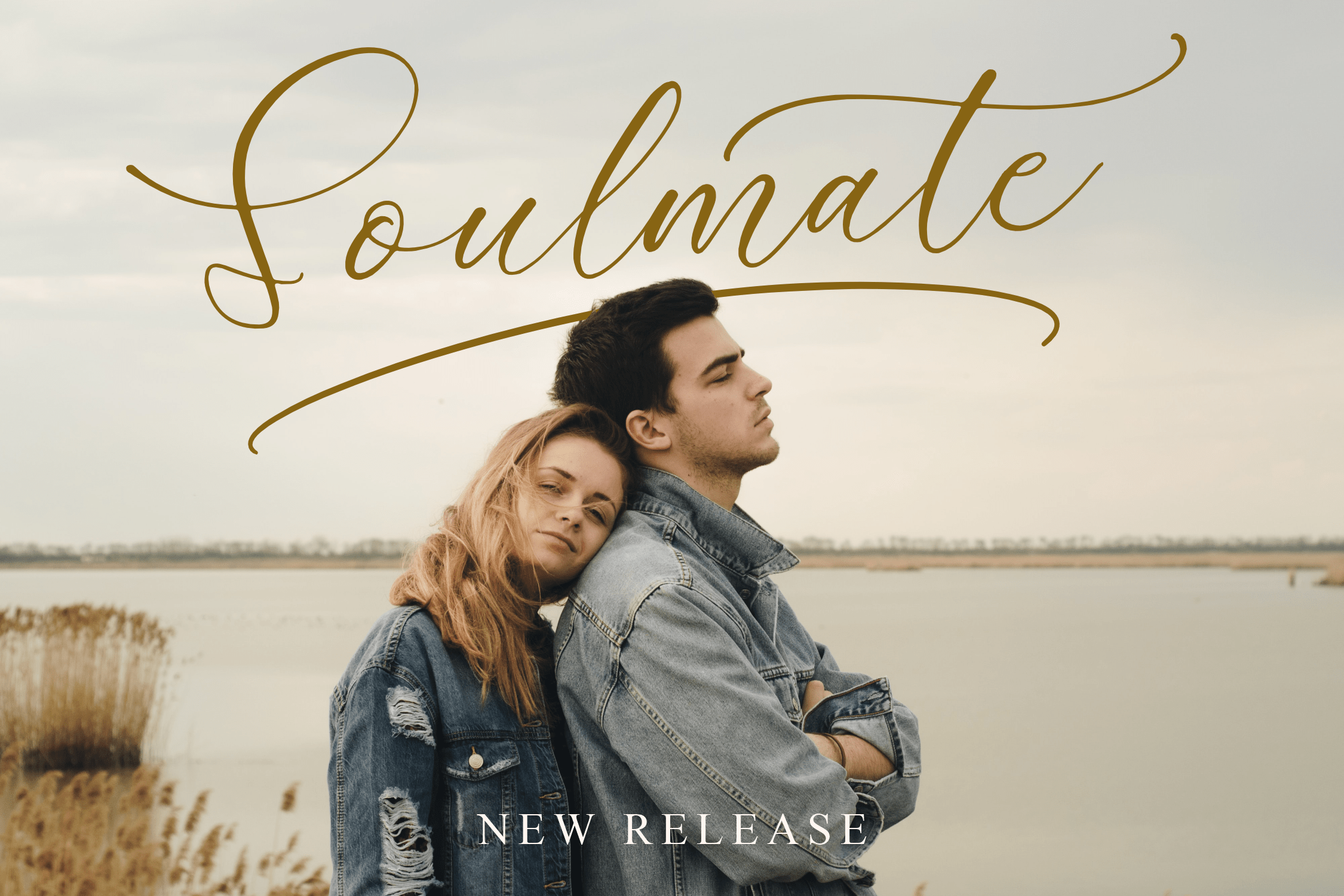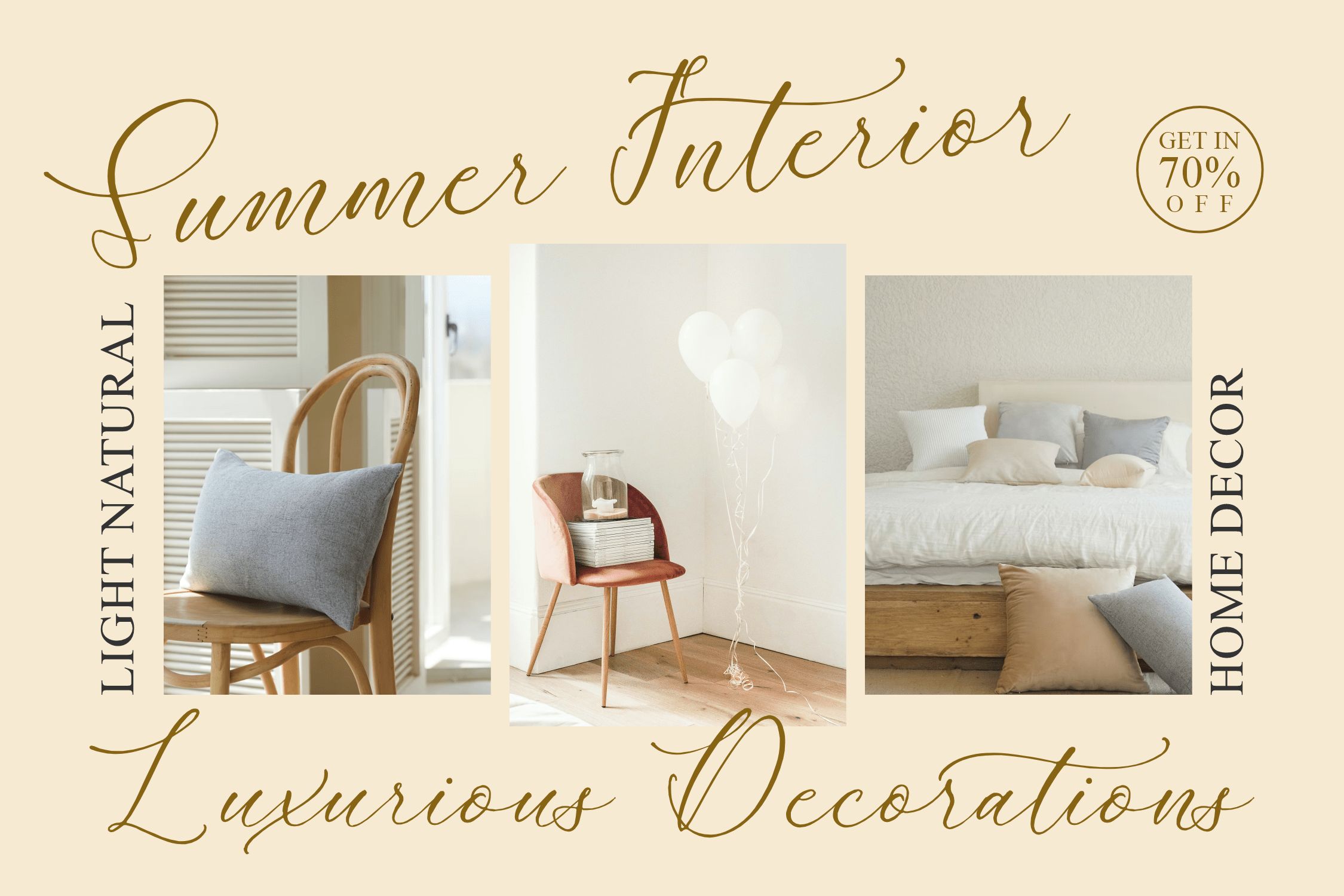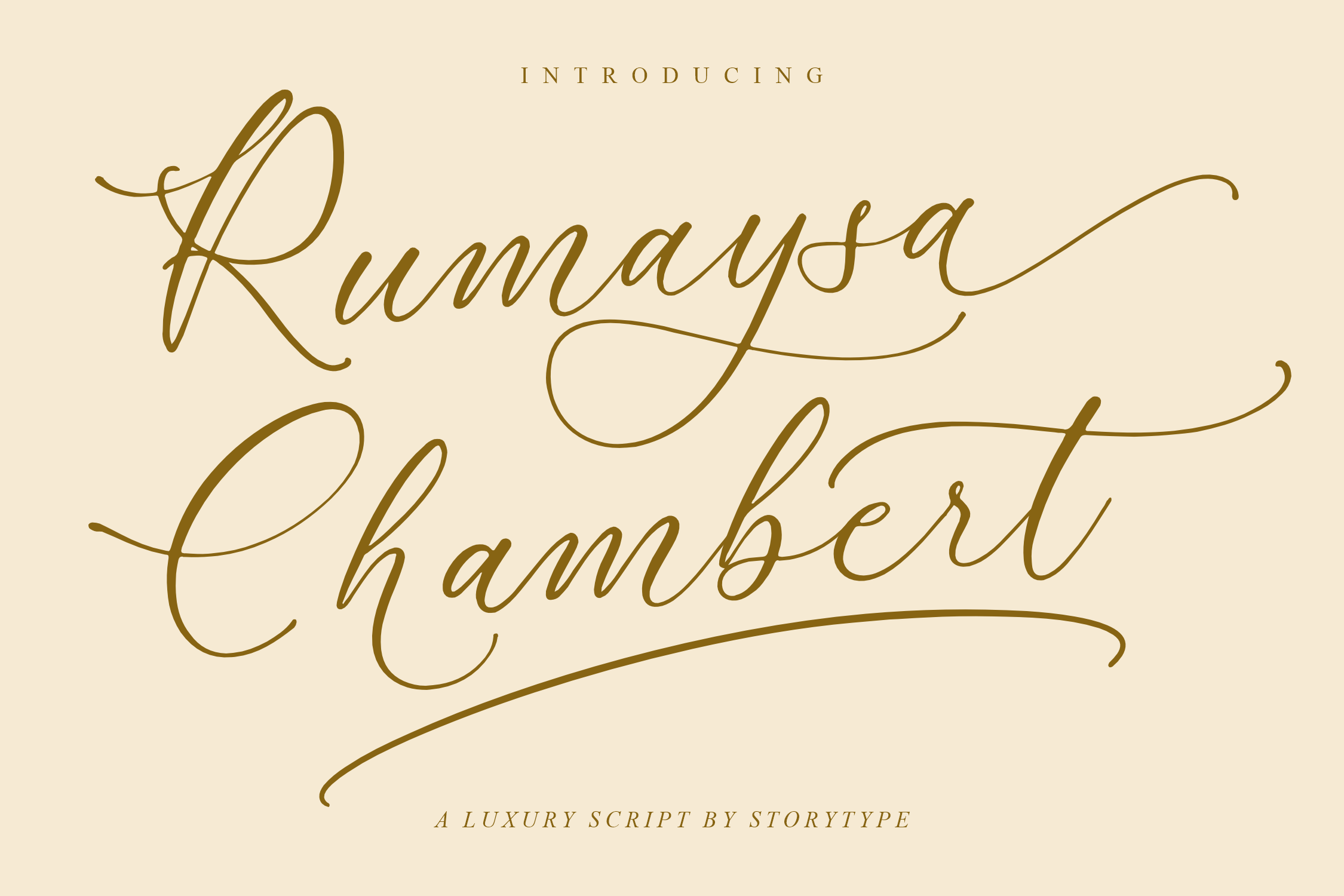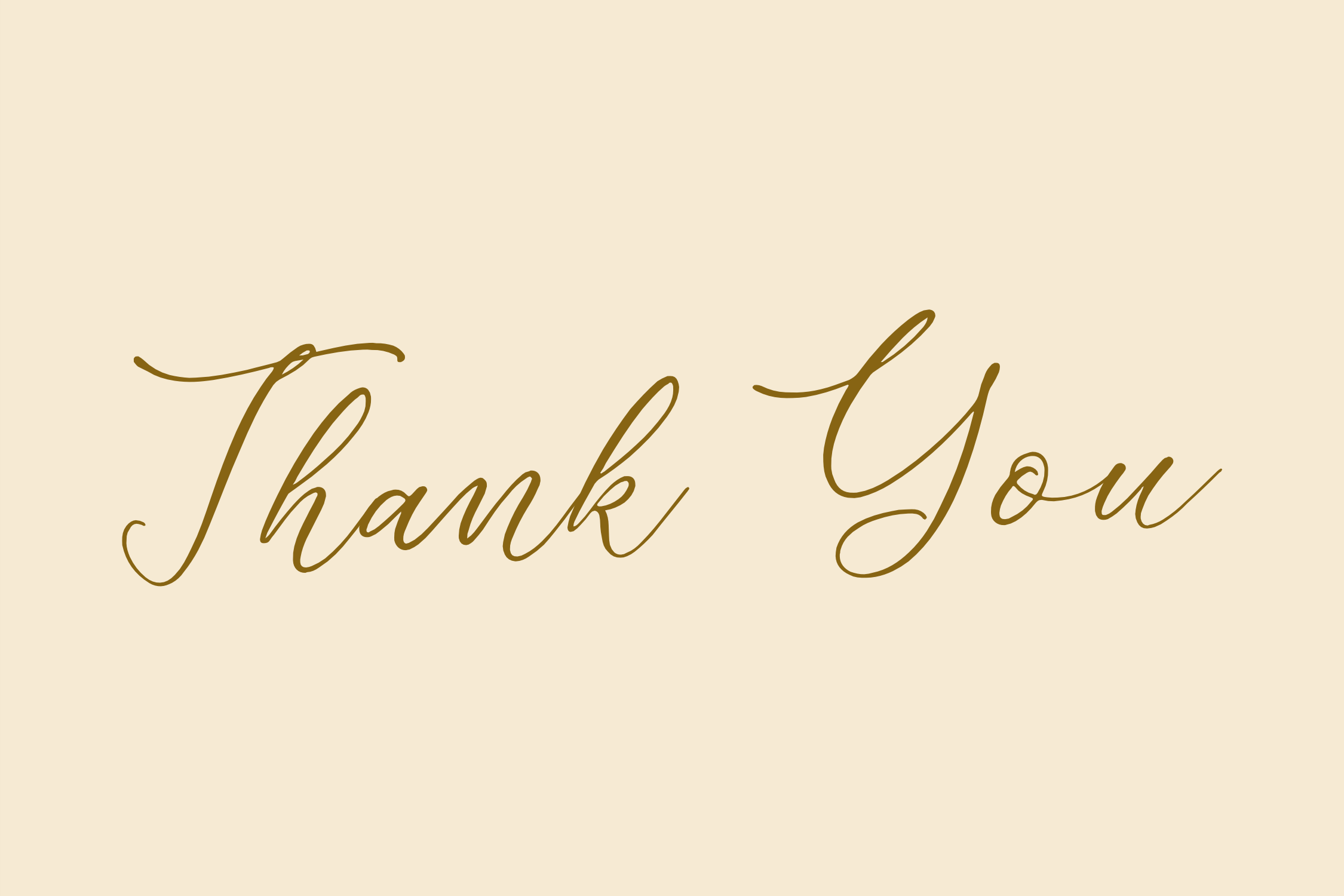
Rumaysa Chambert Script Font is a luxury script that has own unique style & modern look. This typeface is perfect for an elegant & luxury logo, book or movie title design, fashion brand, magazine, clothes, lettering, quotes, and so much more.